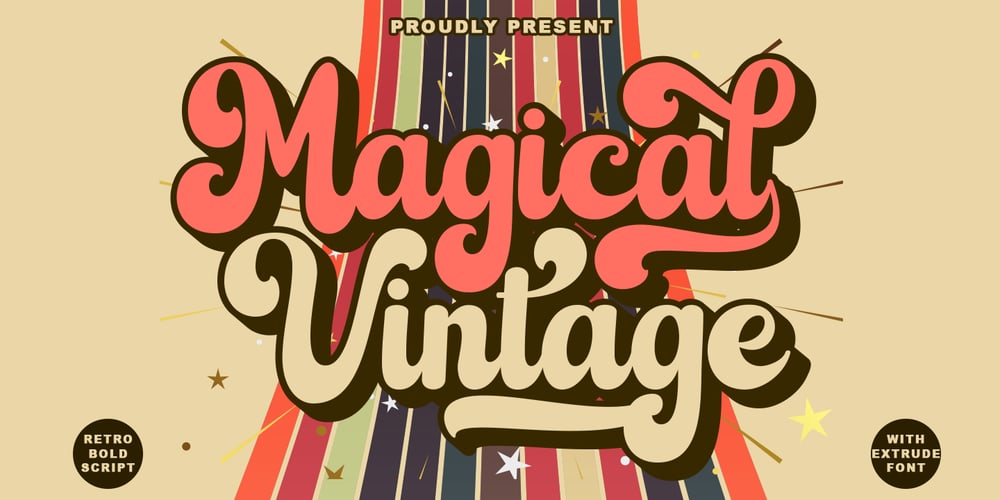
Magical Vintage Font Family was designed by Muhammad Iqram and published by Gloow Studio. Magical Vintage contains 2 styles and family package options. Magical Vintage Font – Retro 70’s Script Style. It comes with open type features like style alternatives, style sets, contextual alternatives & binders. This Retro styled font will help you create amazing designs. It offers beautiful typographic harmony for a wide variety of design projects, including logos & branding, social media posts, advertising & product designs.